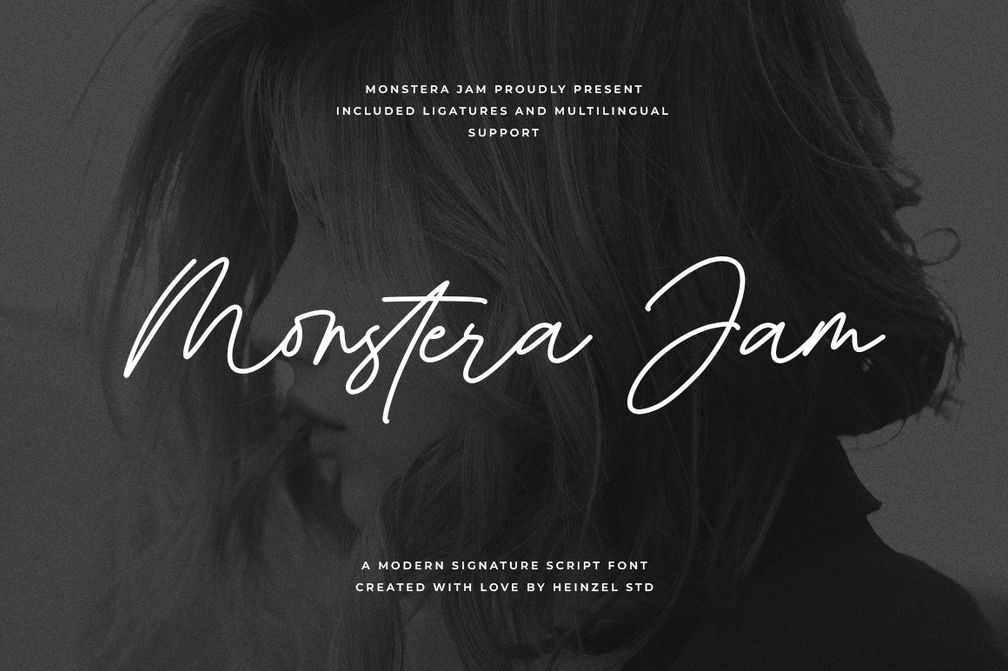
Monstera Jam Signature Font
Introducing Monstera Jam Font, a sophisticated signature typeface that adds an air of elegance to your design projects. With its refined letterforms and impeccable strokes, Monstera Jam Font is the perfect choice for creating a personalized and luxurious touch.
Crafted with precision and attention to detail, Monstera Jam Font captures the essence of a handcrafted signature. Its fluid curves and distinctive flourishes create a sense of exclusivity and sophistication, making it ideal for branding, logos, wedding invitations, thank you cards, quotes, greeting cards, business cards, social media posts, magazines, marketing materials, and more.
Designed with legibility in mind, Monstera Jam Font ensures clear and readable text in various sizes and applications. Its versatility and timeless appeal make it suitable for both digital and print projects, giving your designs a touch of class and professionalism.
Elevate your designs with the signature elegance of Monstera Jam Font. Embrace the opportunity to bring your creative vision to life with this exceptional typeface. Experience the power of a personalized signature font that leaves a lasting impression.
Monstera Jam Features :
- Uppercase and Lowercase
- Numerical and Punctuation
- Ligatures
- Multilingual Language
- Easy To Use
This character set supports the following 21 languages : Afrikaans, Basque, Breton, Catalan, Danish, Dutch, English, Finnish, French, Gaelic (Irish, Scots), German, Icelandic, Indonesian, Irish, Italian, Norwegian, Portuguese, Saami (Southern), Spanish, Swahili, Swedish.